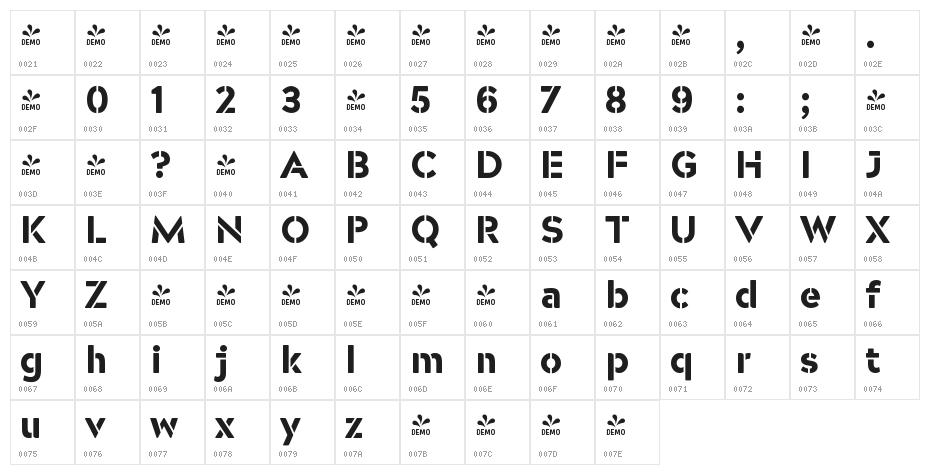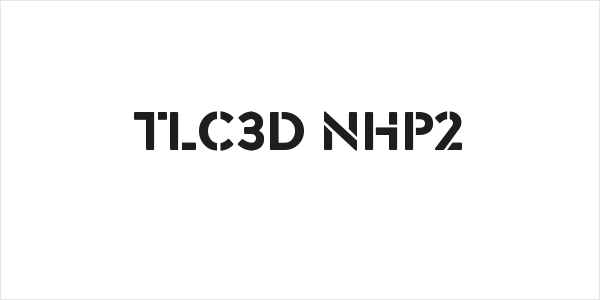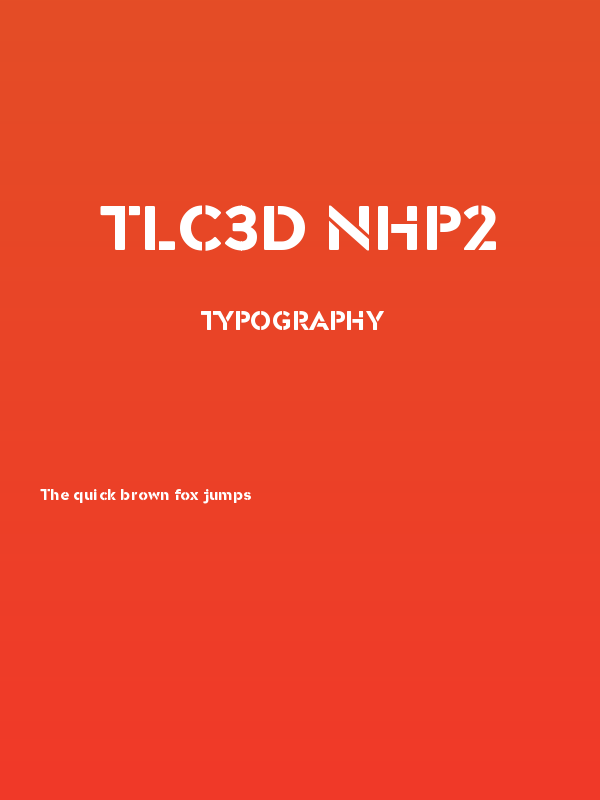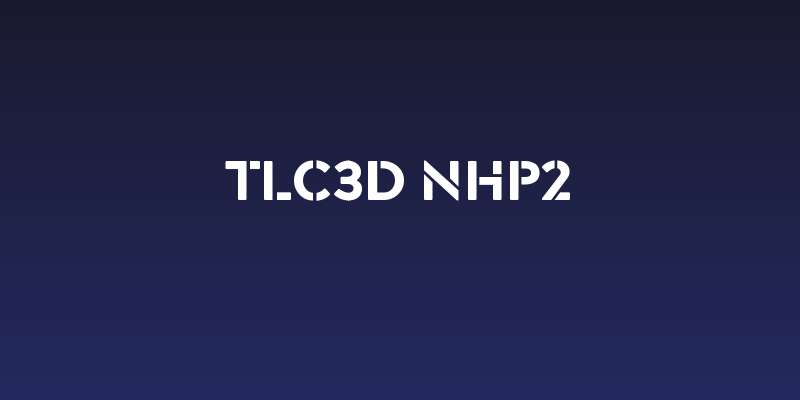
TLC3D NHP2 Font
TLC3D NHP2 Description
This font features a bold, geometric design with a strong emphasis on angular shapes and clean lines. The uppercase letters are characterized by their sharp edges and uniform stroke widths, creating a modern and impactful appearance. The lowercase letters maintain the same geometric style, offering a cohesive look throughout. The numerals are equally bold and consistent, ensuring readability and visual harmony. Special characters are included, adding versatility to the font's use. Overall, this font's design is striking and contemporary, making it suitable for a variety of creative applications.